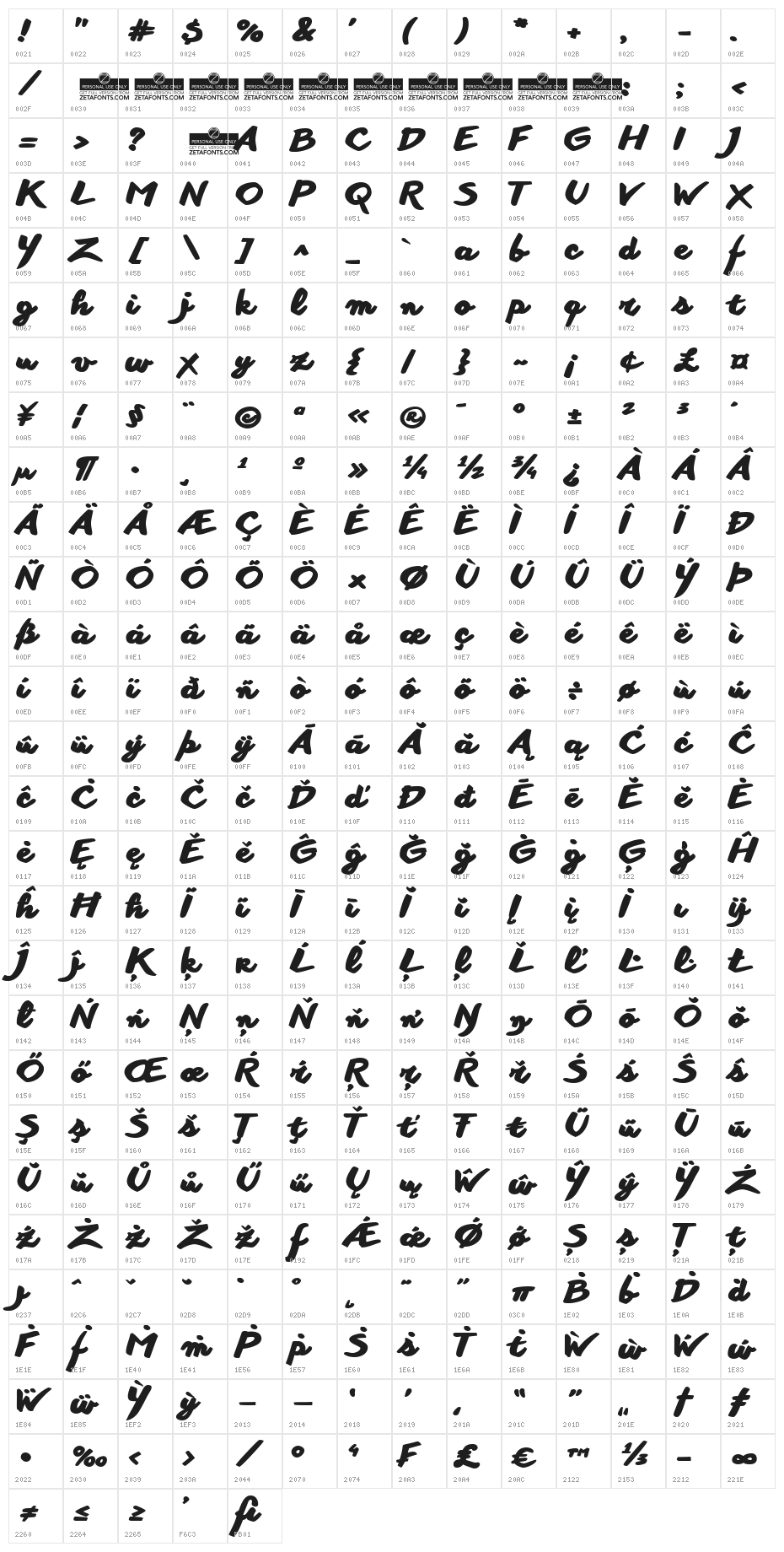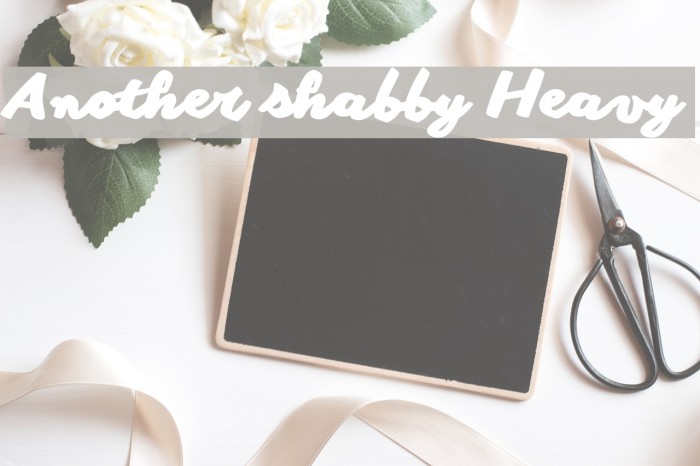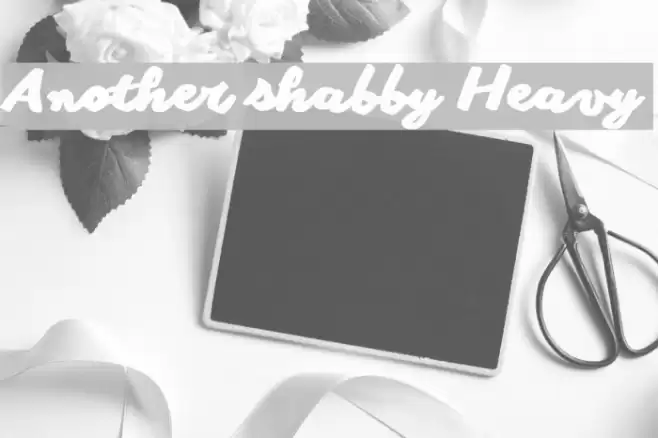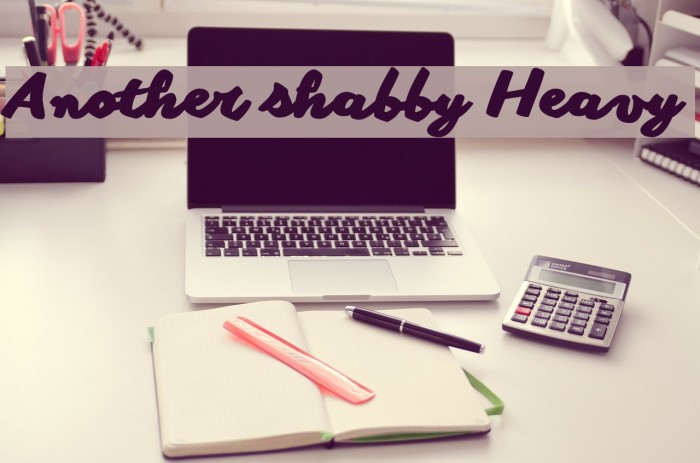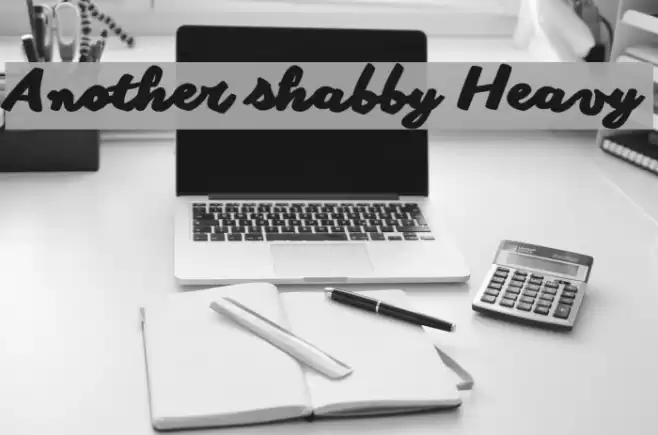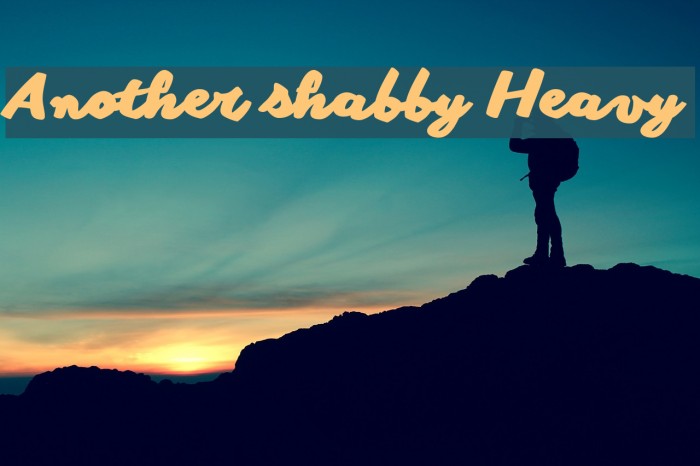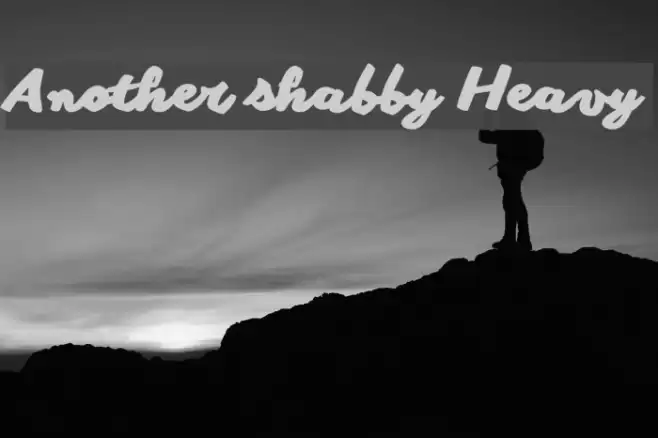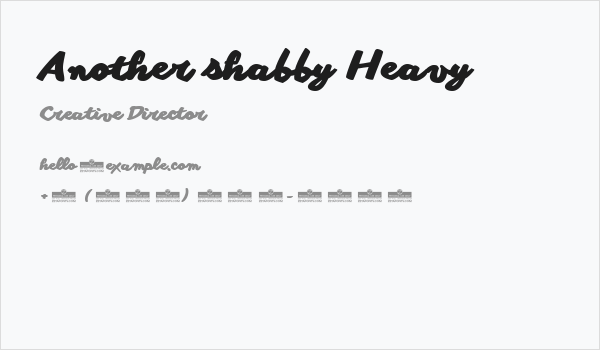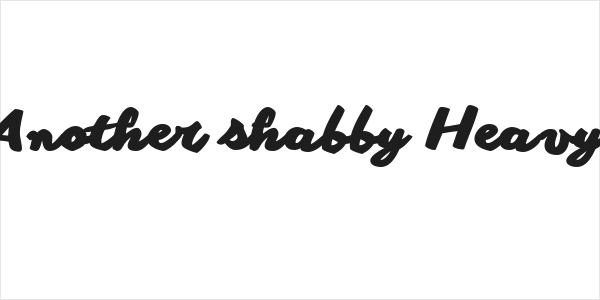
Another shabby Heavy Font
Another shabby Heavy Description
This font exhibits a bold and dynamic script style with a handwritten appearance. The letters are connected, giving it a fluid and continuous look. The strokes are thick and consistent, providing a strong visual impact. The uppercase letters are slightly slanted, adding a sense of movement and energy. The lowercase letters maintain the same boldness, with some characters featuring distinctive loops and curves that enhance its casual and informal aesthetic. The numerals and special characters follow the same stylistic approach, ensuring uniformity across the font. This font is ideal for projects that require a personal touch or a sense of spontaneity.
| Proposed Projects | Perfect for branding, logos, invitations, and social media graphics where a personal and energetic touch is desired. |